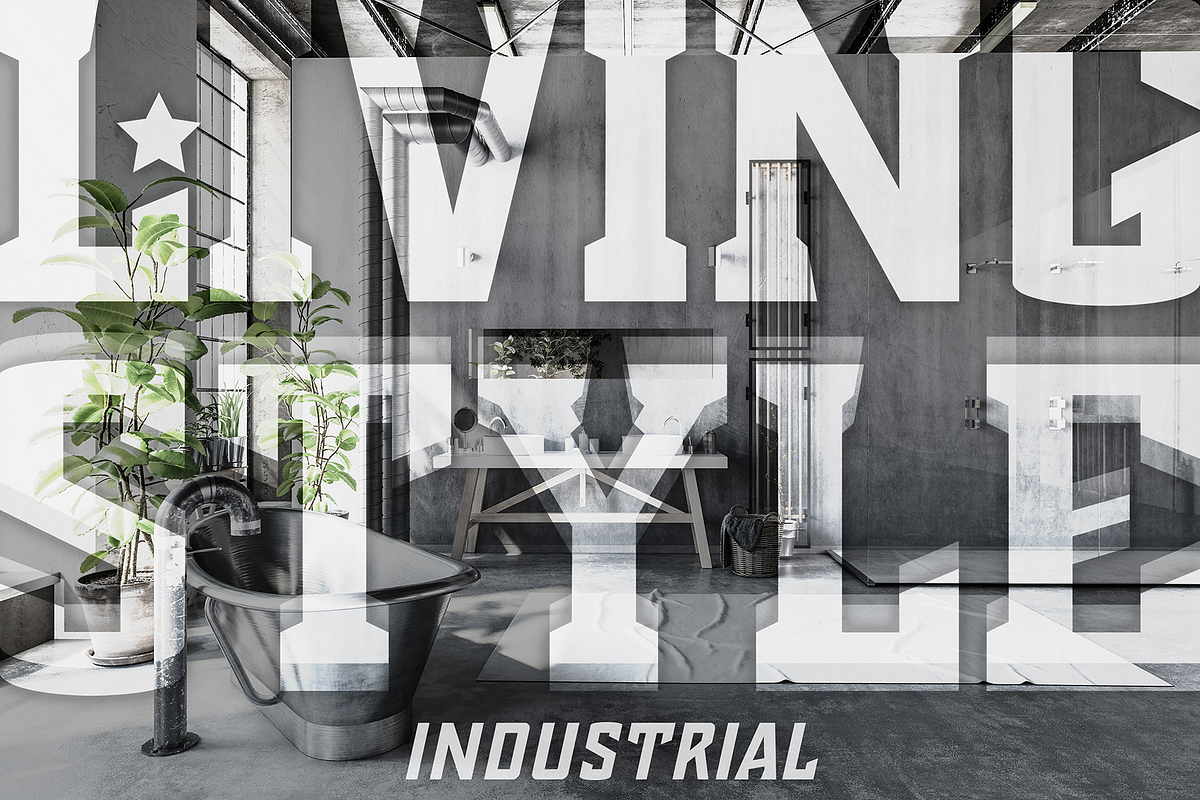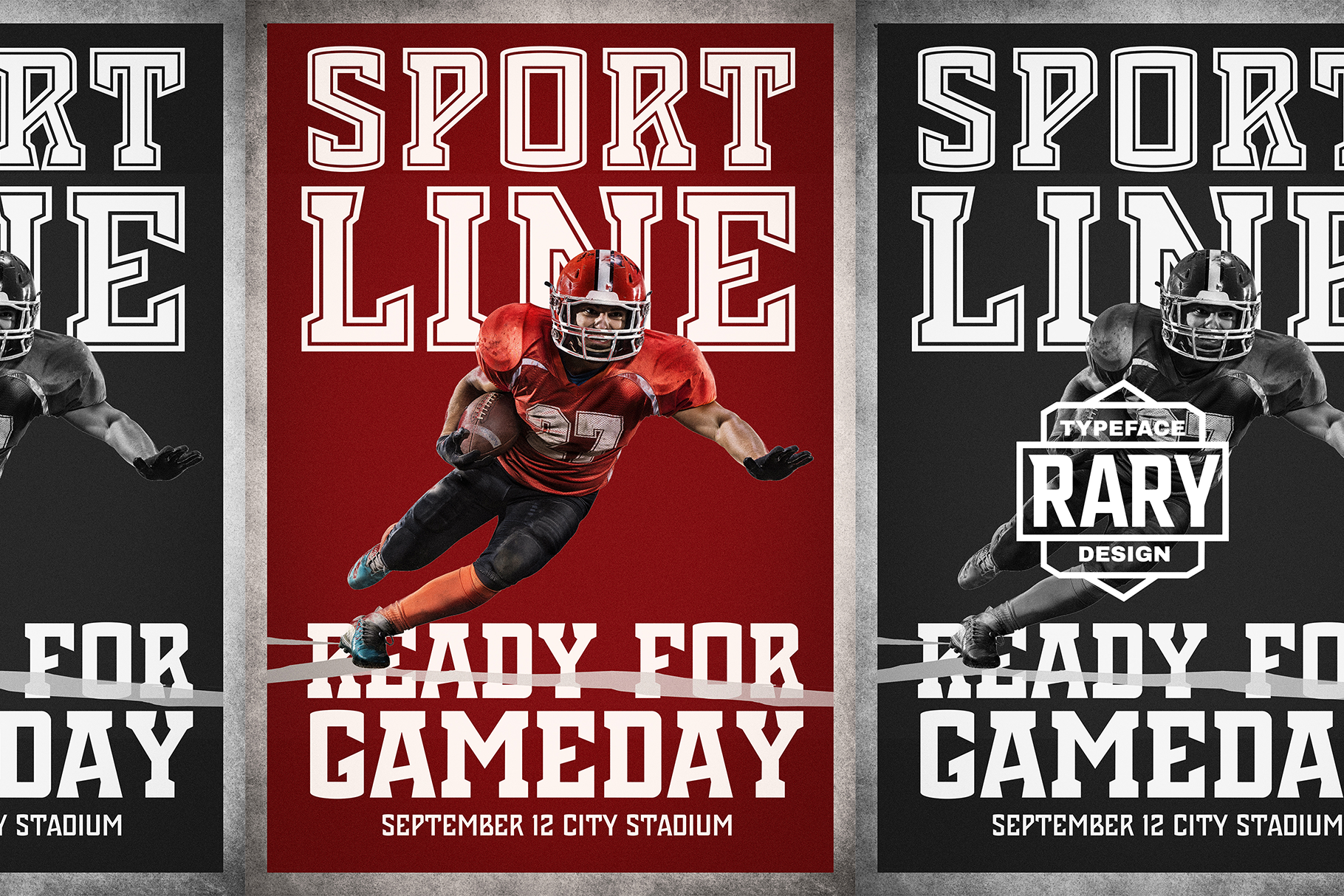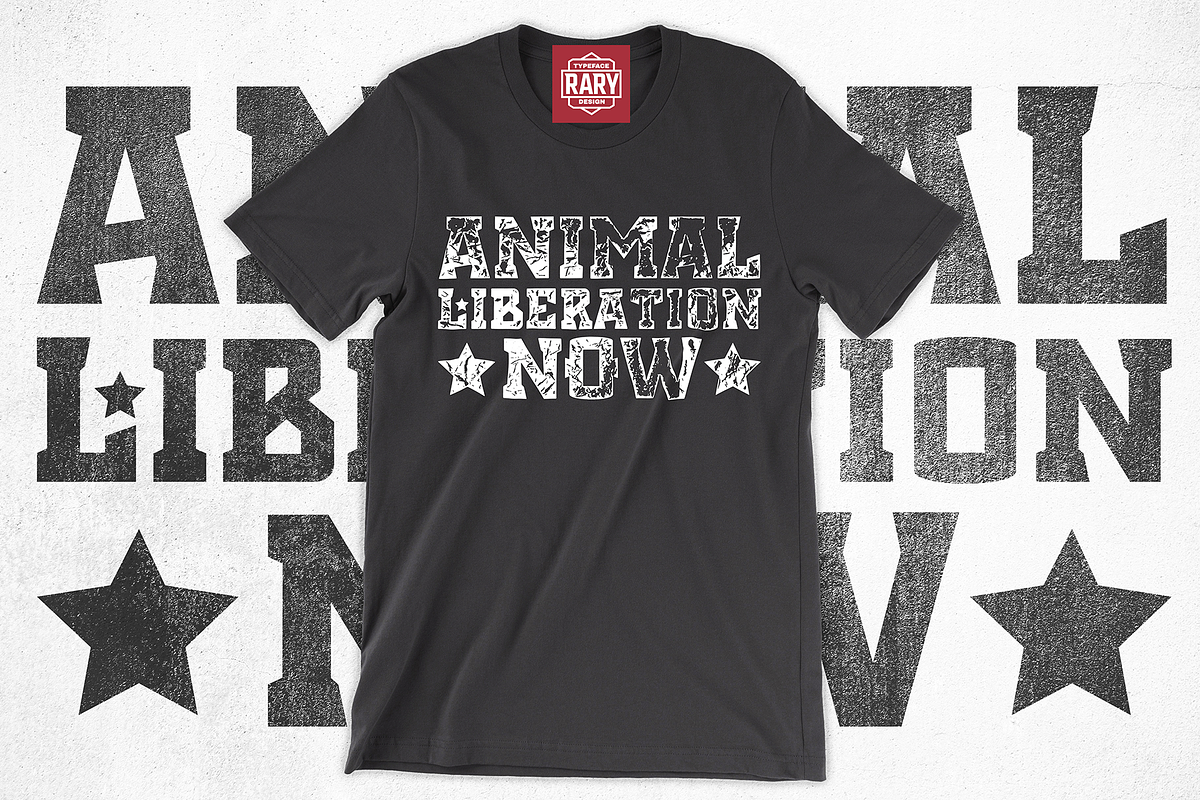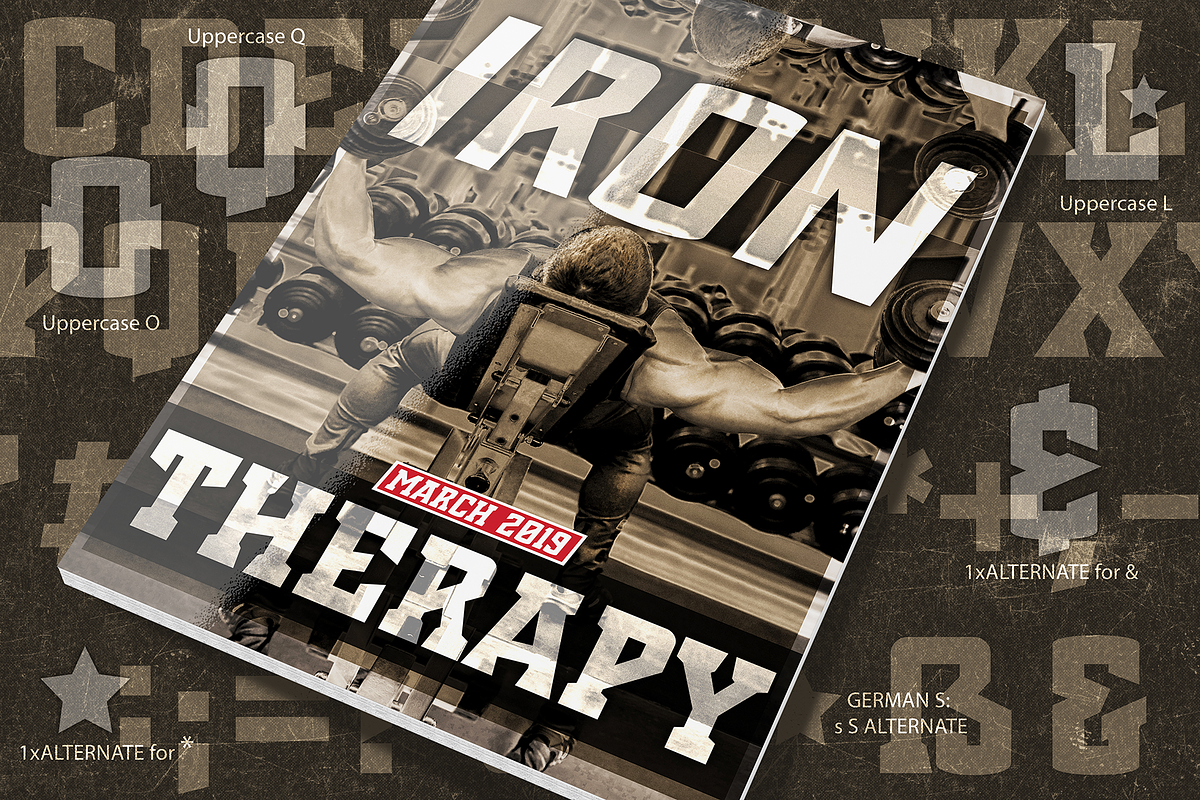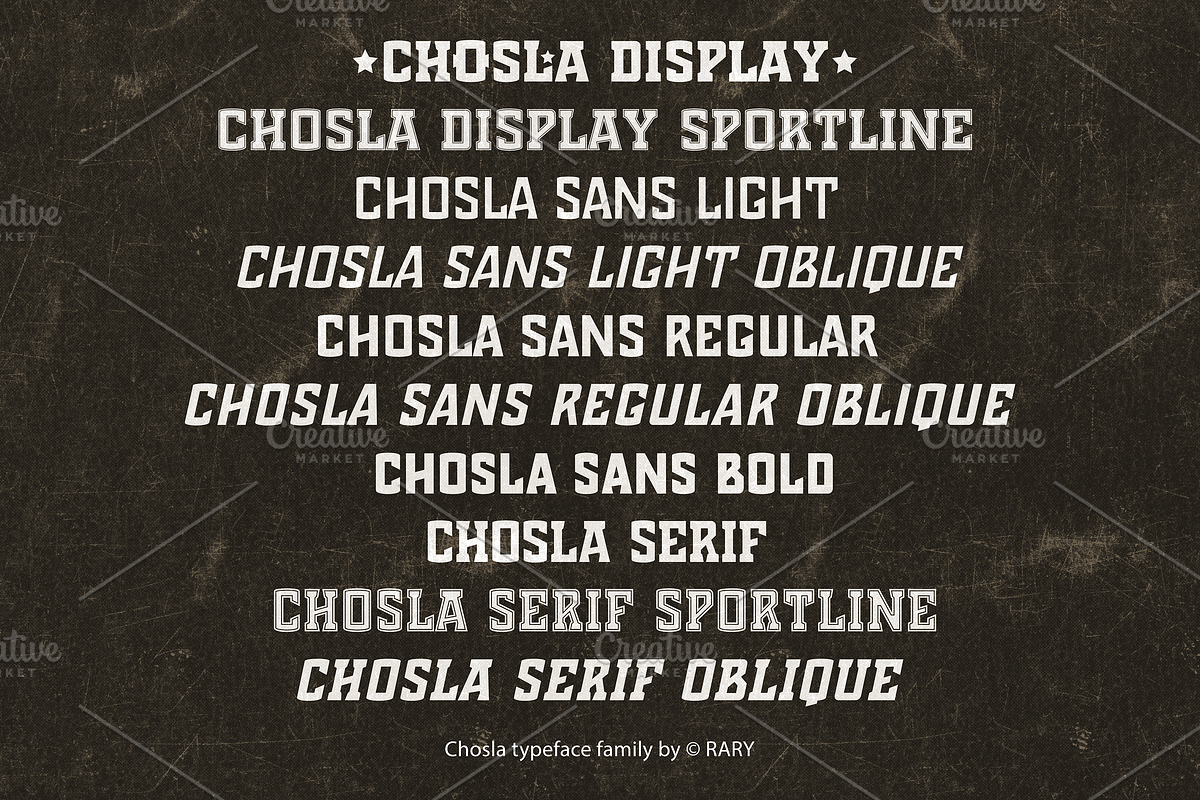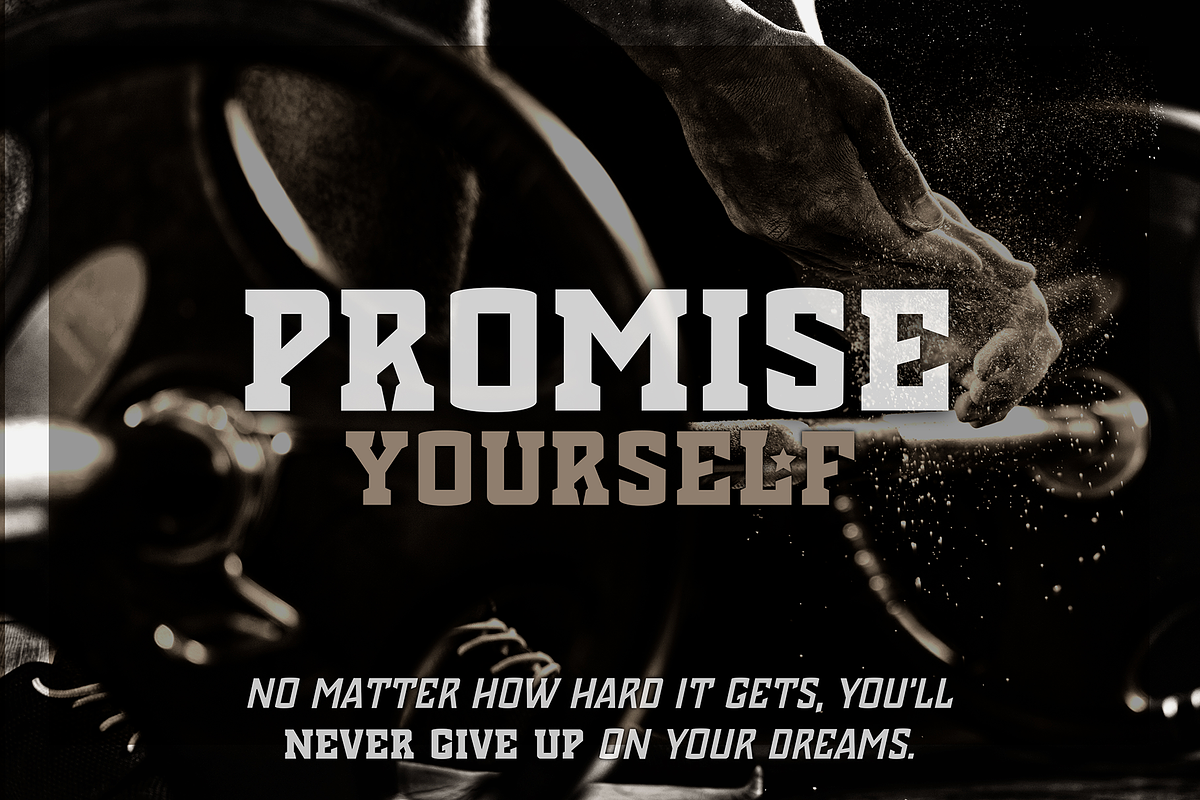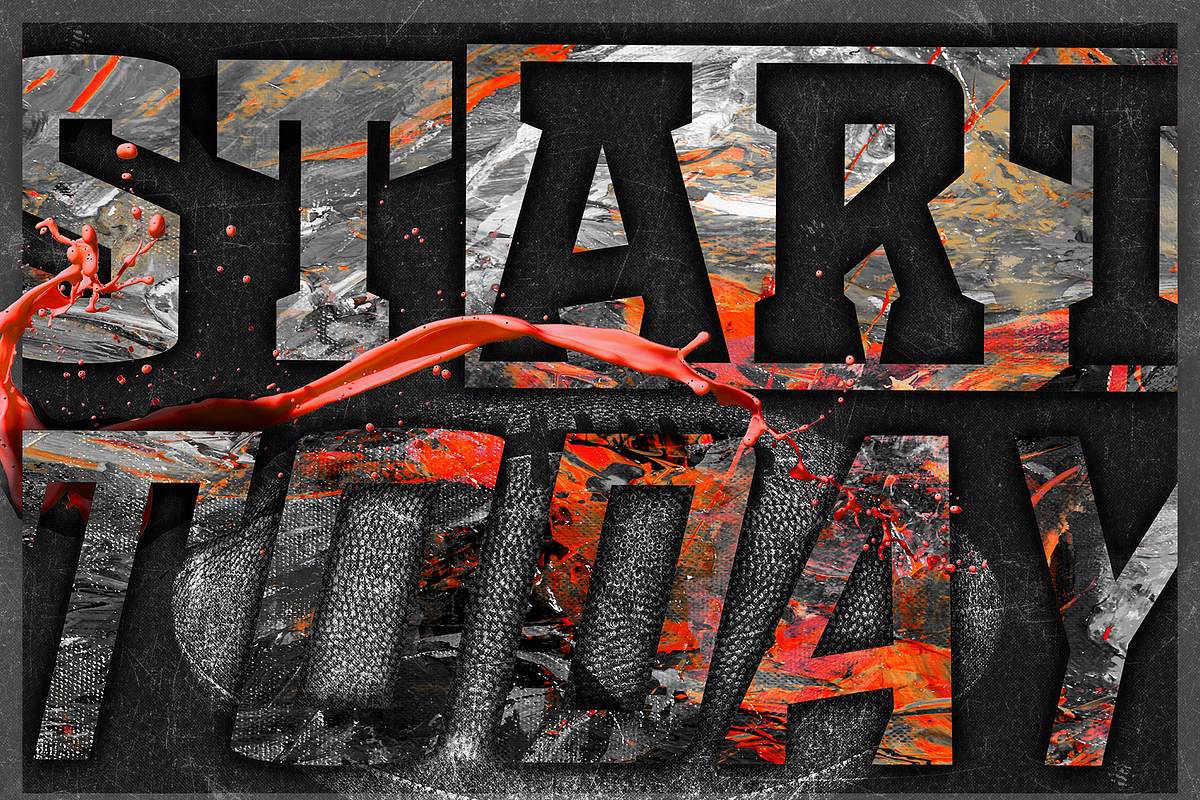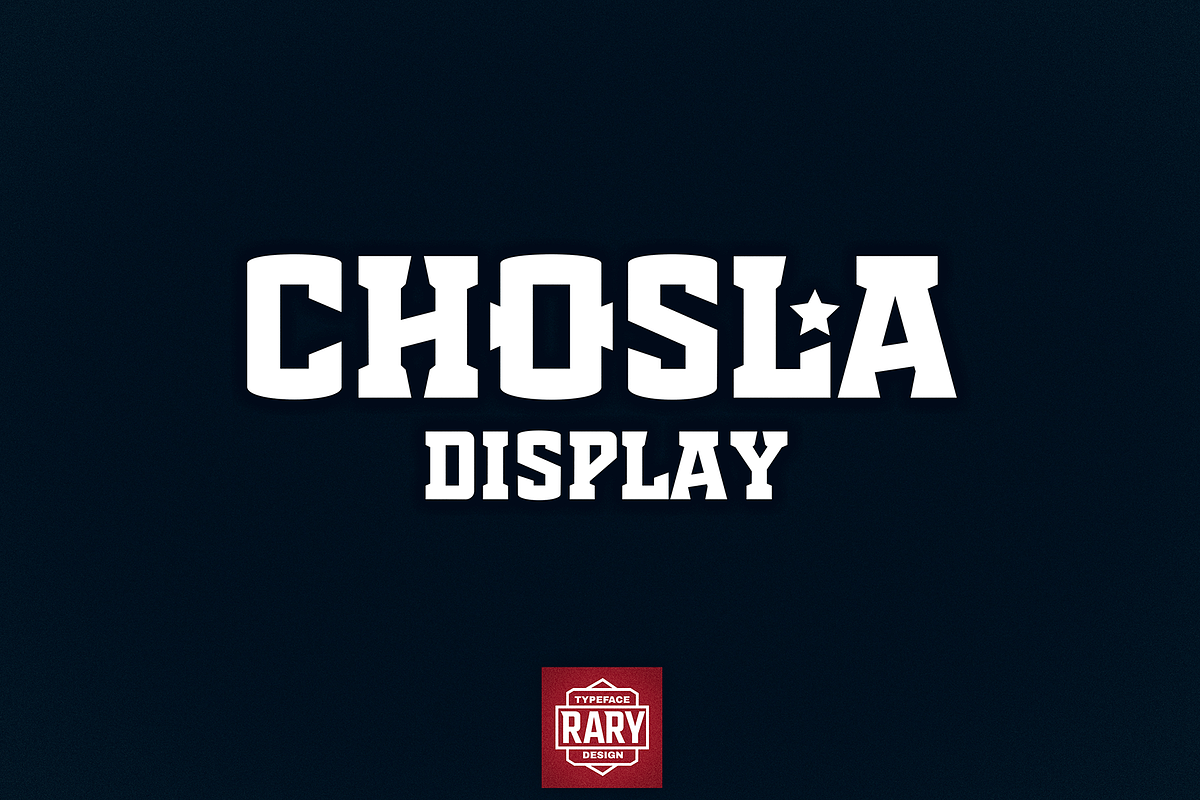
Chosla | sports style font family.
Chosla is creative and modern block font family. Design beautiful sports posters, urban style posters, magazine covers, make bold advertising and headlines perfectly organized in blocks, all with a strong first impression and rigid masculine look. Choose from 10 styles that cover your needs. Chosla sans serif helps you create short block texts perfectly matched with Chosla slab serif styles. You can choose from two sportline styles that can better respect the size and format you are working on currently.
Regular, Sportline
Light, Light oblique, Regular, Regular oblique, Bold
Regular, Oblique, Sportline